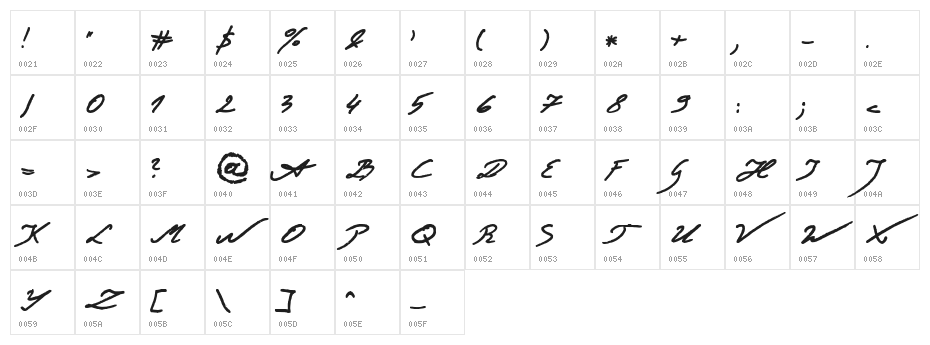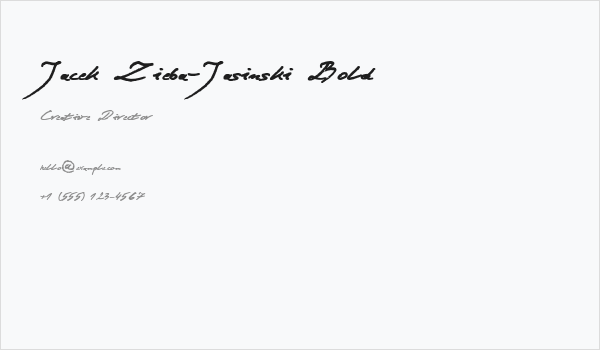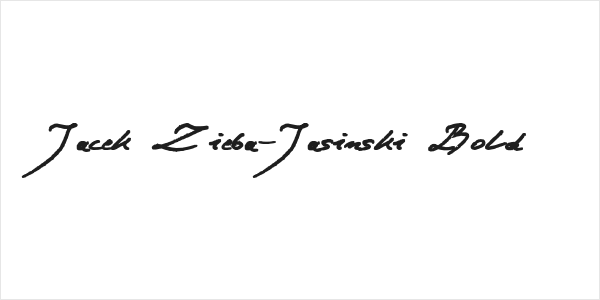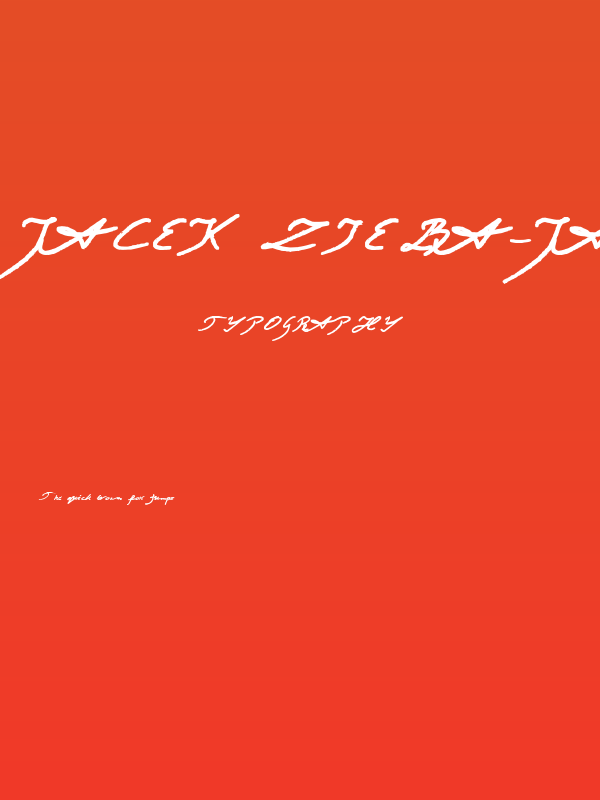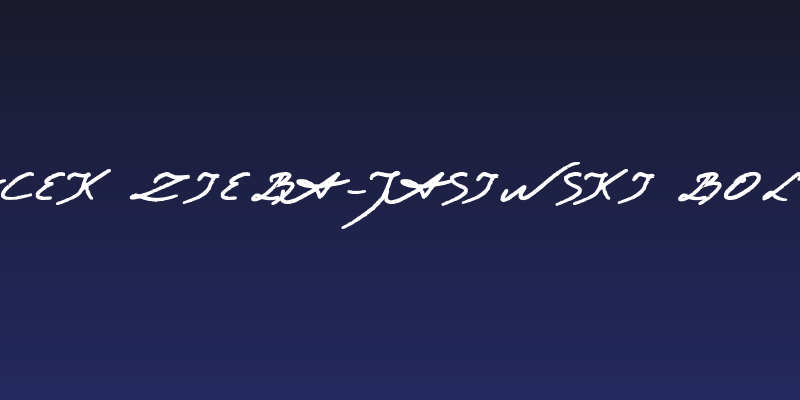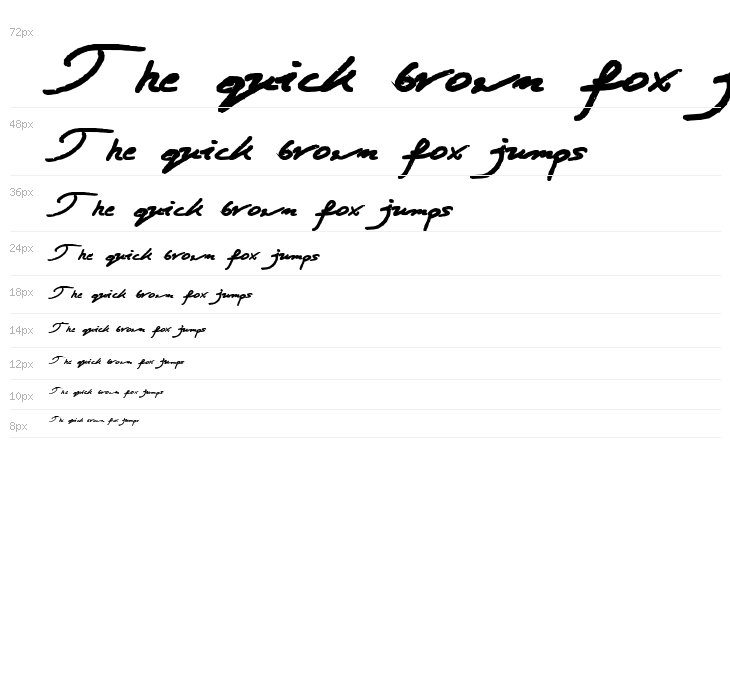
Jacek Zieba-Jasinski Bold Font
Jacek Zieba-Jasinski Bold Description
This font exhibits a dynamic and fluid handwritten style, characterized by its cursive and connected letterforms. The strokes are bold and expressive, giving it a lively and personal touch. The uppercase letters are slightly more formal, while the lowercase letters maintain a consistent flow, enhancing readability. The numerals and special characters follow the same energetic style, making them cohesive with the alphabet. This font is ideal for projects that require a personal or artistic flair, such as invitations, greeting cards, or branding materials that aim to convey creativity and individuality.